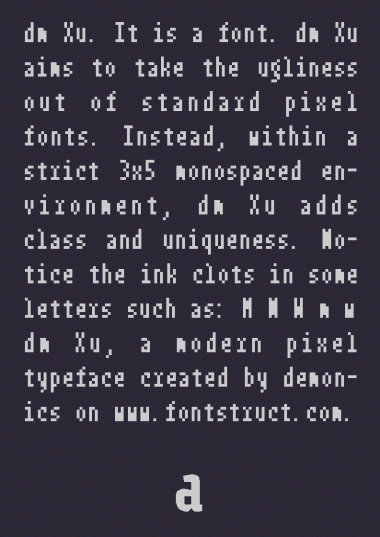
For the record, Cryllic is virtually impossible in a 3x5 monospaced environment.
Cool. But this is 3x7, and with the descenders it increases the grid even more.
Some of the letters are fuzzy at pixel view. A pixel font should look razor sharp on the screen, that's the point of using them. Try to modify the fuzzy letters: use only whole square bricks with no filters.
I learned more about the problem. The glyphs are fine, but the spacing was a fraction, not integer. For pixel fonts, the spacing value should be an integer. In case of dm Xu: 4 is perfect. Otherwise the font pixels won't fall on whole screen pixels, and consequently become fuzzy.
10/10 Awesome.
The r is cool, it looks strange but is completely recognizable as an r.
@Frodo7 Well that explains a lot I see in font previews.
I just noticed the sample isn't completely monospaced... or something. The letters don't exactly line up all the time.
I made a clone and I'm adding stuff lol
Also fixed the width problem, and your pound sign is a width of 4.
And the font's height is really 12, counting all the descenders and accents and stuff.
@demonics - Ugliness in standard pixel fonts? I, sir, am offended! :^) :^) :^)
@AFT // 3x5 is based upon the x-height. But thanks!
@umbreon126 // Thanks! The sample was justified spacing, not left-aligned, because left-aligned didn't look so good in the tight rectangle. Pound sign: this £ or this # ? This £ I couldn't figure out an alternative for so it extended into another character but the width is still 3. Thanks for caring! :-)
@goatmeal // I wanted to spark some life into pixel fonts :-)
@redux // I was partially inspired by your gallery. It's cool. I was also inspired by the font that FontStruct uses for the FontStructor (I believe it is Officina Serif) at pixel size.
Nice work. 10/10
Nice one, demonix! The "ugliness" of this pixels is the cool side of this font. While can't be used well in small size, it can be used beautifully in medium - big size!
I. Love. This. Best. Font. Ever.